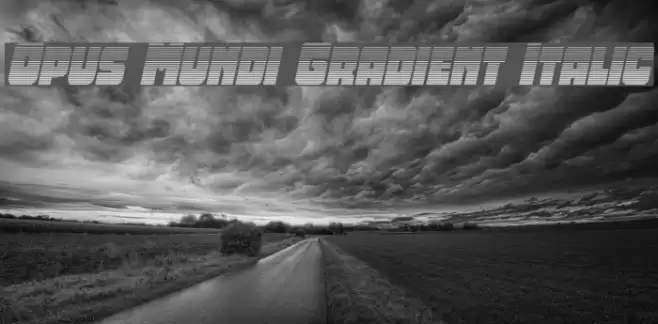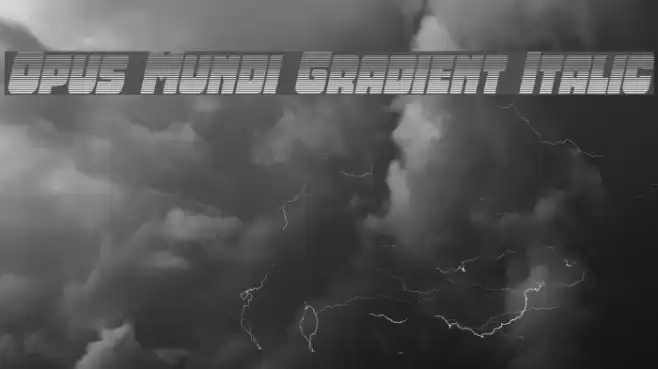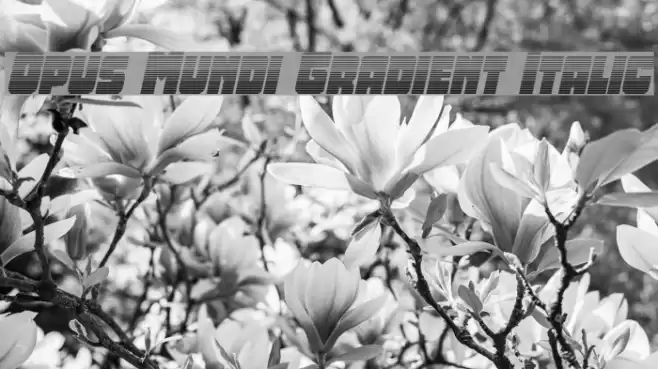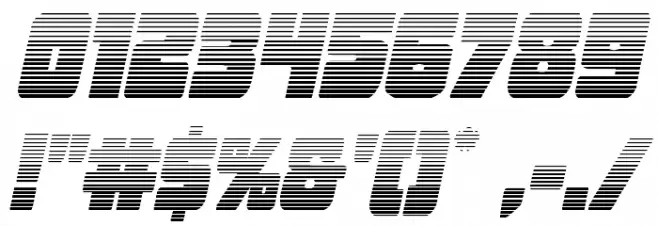
Opus Mundi Gradient Italic Font
Opus Mundi Gradient Italic Description
This font features a bold, italicized style with a distinctive gradient effect that gives it a dynamic and modern appearance. The characters are designed with horizontal lines that create a sense of movement and depth, making it stand out as a display typeface. The uppercase and lowercase letters maintain a consistent width, while the numbers and special characters follow the same design principles, ensuring uniformity across all glyphs. The gradient effect is particularly striking, adding a futuristic and edgy feel to the text.
A bold, italicized font with a gradient effect and dynamic, modern style from Uncategorized fonts.
- Proposed Projects: Ideal for futuristic branding, tech-related projects, sports team logos, and dynamic poster designs.